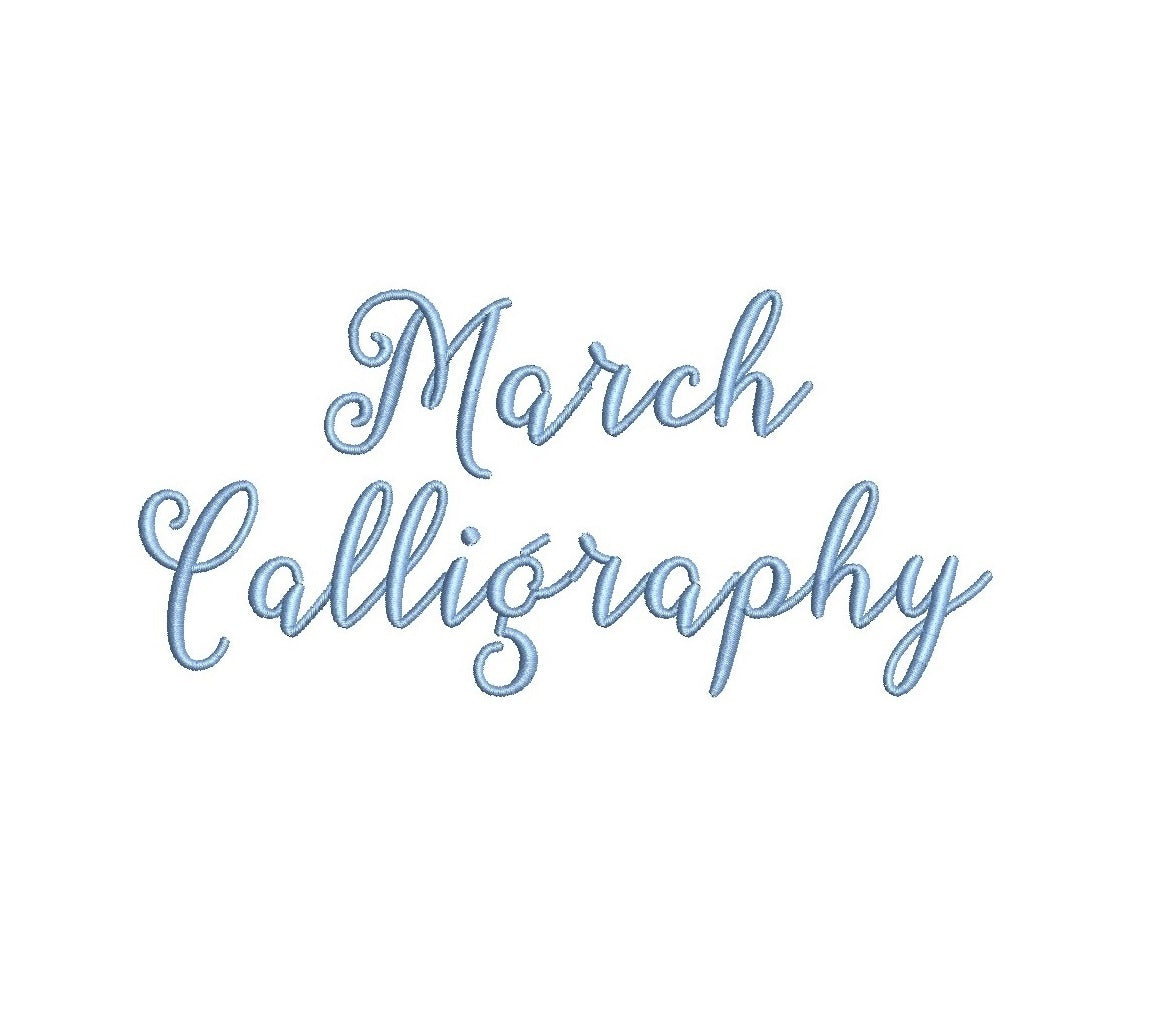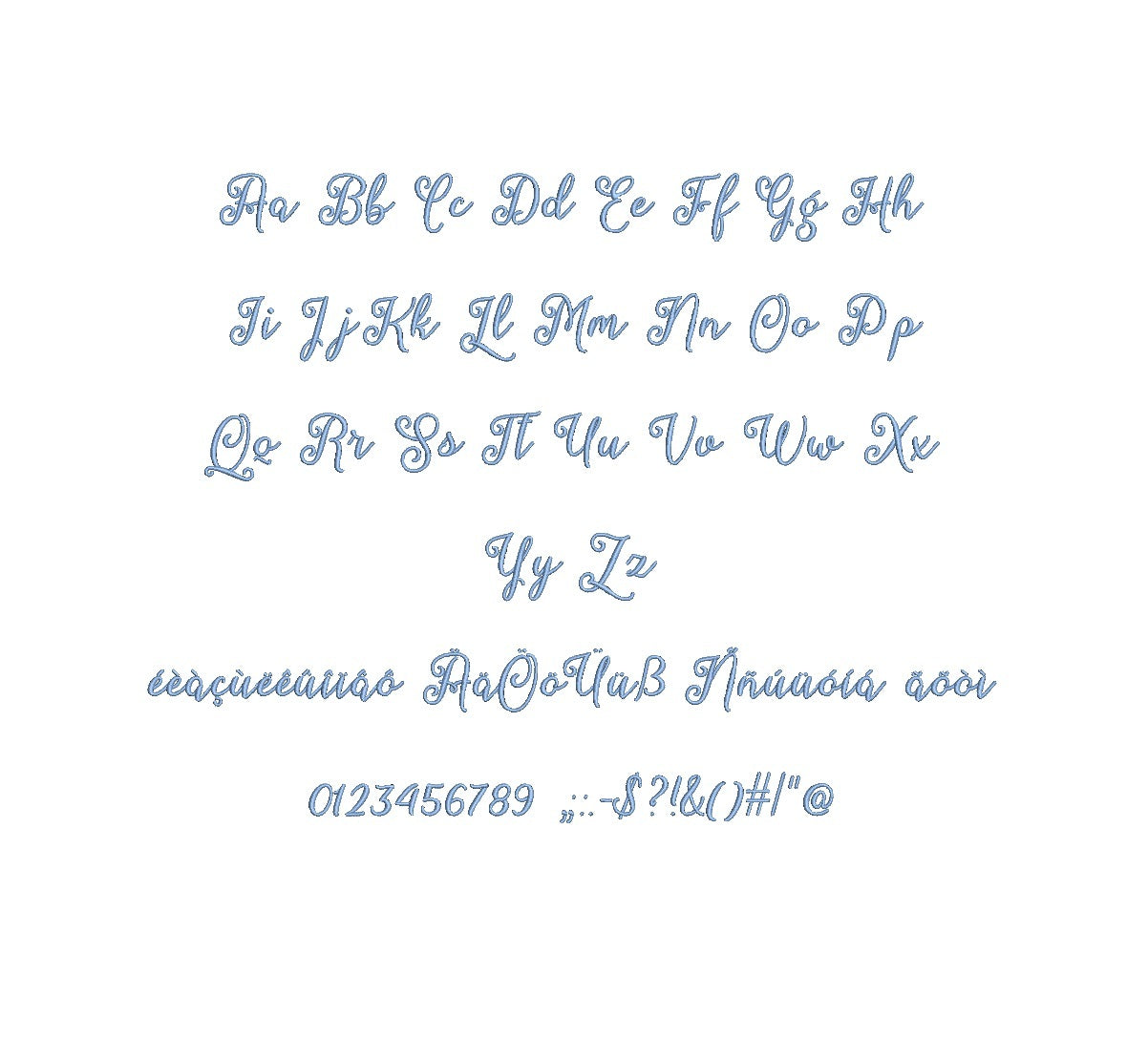
Step into elegance with March Calligraphy Regular ESA font, a sophisticated choice for your embroidery designs. Infused with graceful strokes, this font exudes charm and style. Compatible with Wilcom Studio e4.5.6 and Hatch 3 versions and up, it seamlessly integrates into your digitization process. Craft refined monograms, logos, and decorative accents effortlessly, adding a touch of class to your creations. Elevate your embroidery projects with a hint of finesse and make them truly standout. Don't miss the chance to bring the art of calligraphy to your designs with the March Calligraphy Regular ESA font. Embrace the beauty of timeless lettering today!